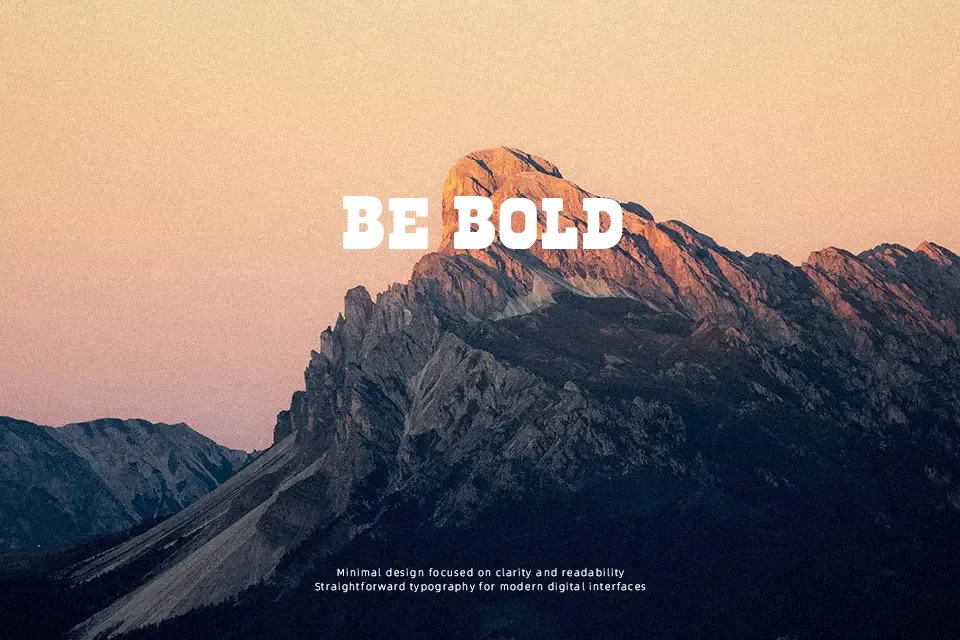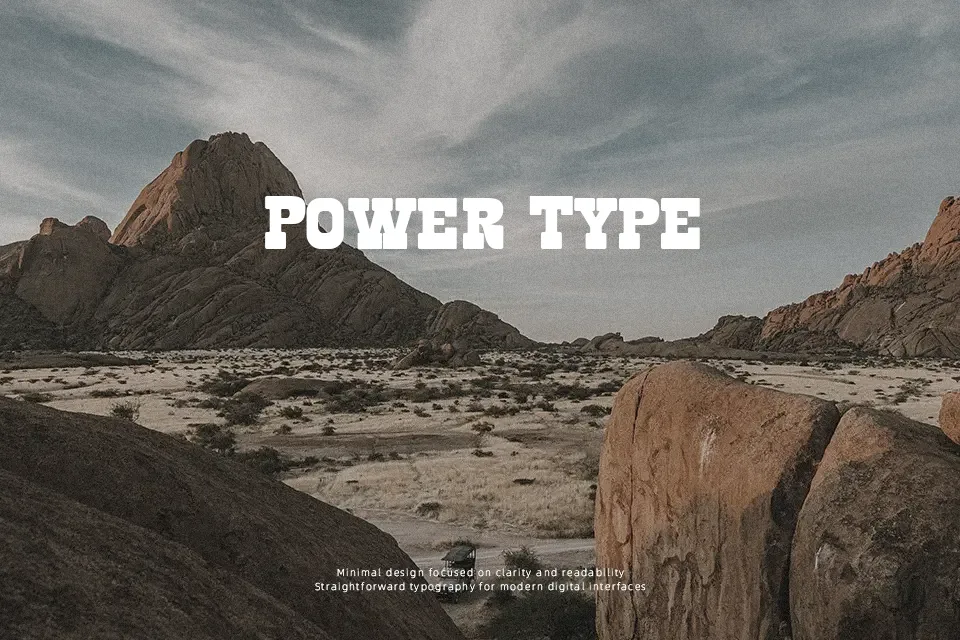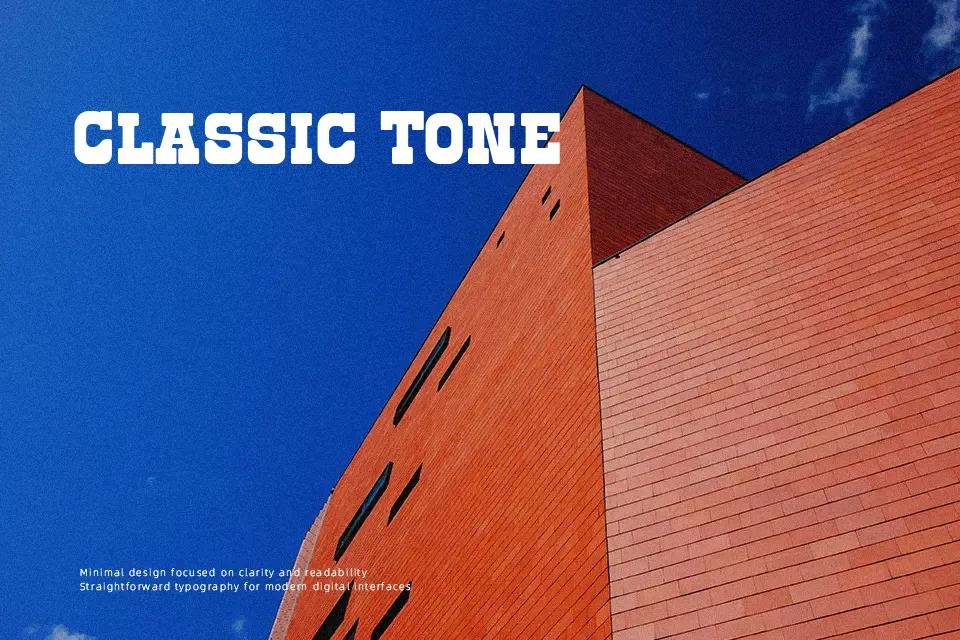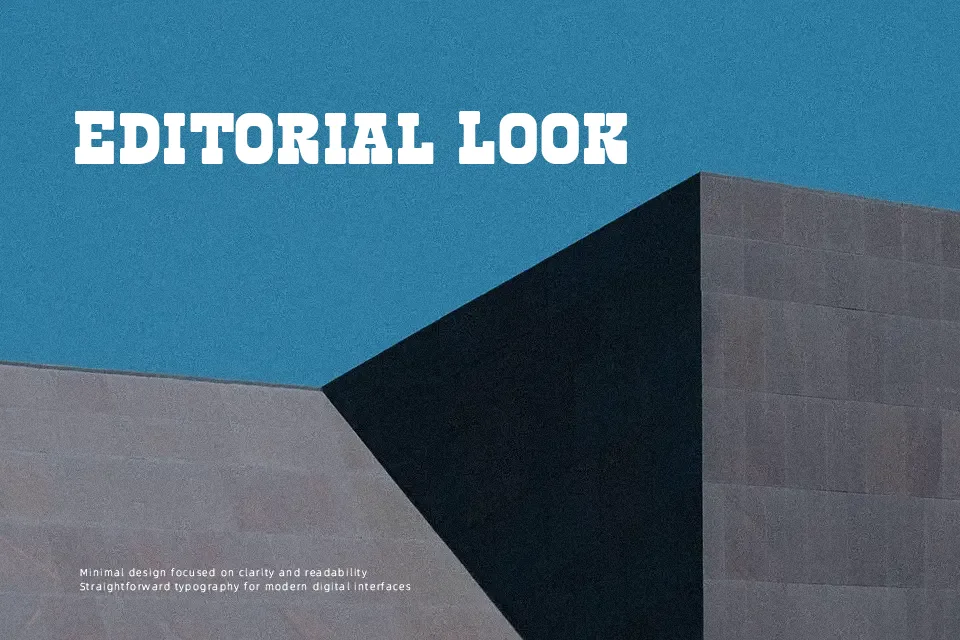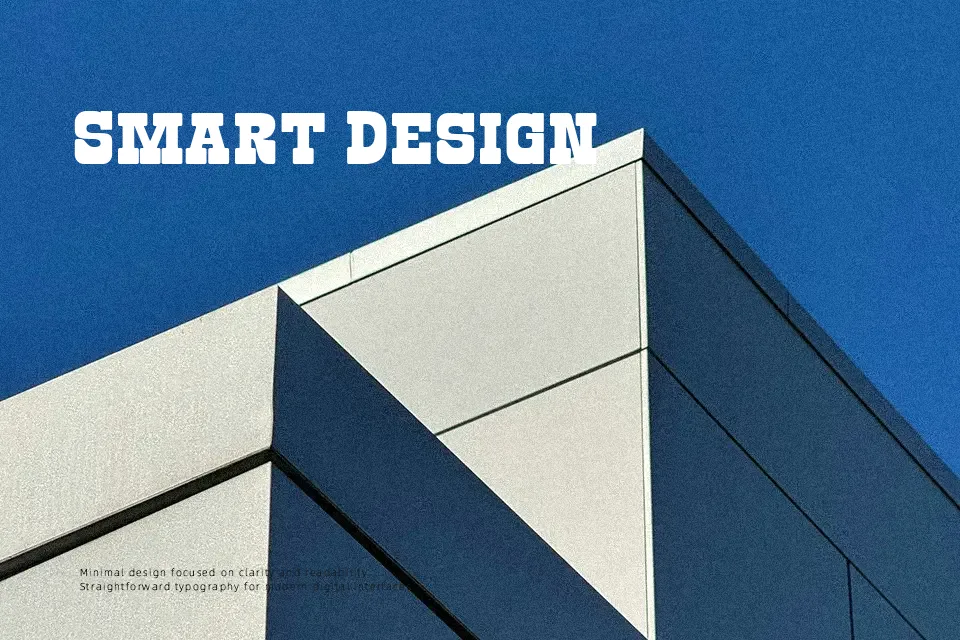
Retro Block Font
Designed by Blankids
The heavy, structured letterforms of Retro Block Font immediately establish a solid and grounded presence on the page. This playful slab serif design features thick, rustic strokes with a rugged finish, giving the characters a distinctive vintage aesthetic. The proportions are wide and sturdy, providing excellent visibility in large headers and prominent branding materials. The spacing helps maintain clarity in larger headlines, ensuring each character remains distinct. While it excels in coffee shop menus, festival posters, and product packaging, the dense forms reduce continuous reading comfort. Consequently, this typeface becomes less effective when applied to long paragraph text or small interface labels.
vintage product packaging
coffee shop menu headers
website hero headlines
Perfect for headline, logo, and packaging, with a bold and display style.